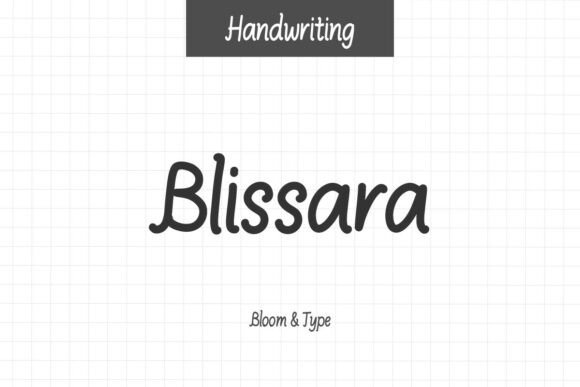
Introducing Blissara Font: The Epitome of Modern Simplicity and Human Touch
In the realm of typography, fonts play a pivotal role in conveying messages, evoking emotions, and creating lasting impressions. Among the myriad of fonts available, Blissara stands out as a beacon of elegance and approachability. This gentle handwritten font seamlessly blends modern simplicity with a natural, human touch, making it an ideal choice for designers seeking to inspire, comfort, or connect with their audience on a personal level.
The Essence of Blissara: A Harmony of Modernity and Humanity
Blissara is not just a font; it’s an experience. Each character is meticulously crafted to flow smoothly, exuding a sense of calmness, warmth, and positivity. This fluidity in design ensures that any text set in Blissara is not only aesthetically pleasing but also conveys a feeling of serenity and approachability. Whether it’s for quotes, branding, lifestyle content, packaging, or invitations, Blissara brings a unique blend of modern simplicity and personal charm that is hard to replicate.
The Design Philosophy Behind Blissara
The design of Blissara is rooted in a deep understanding of human psychology and the power of typography. The rounded forms of its characters contribute to its exceptionally high readability, making it easy for readers to engage with the content. At the same time, Blissara retains a personal, handwritten charm that sets it apart from more conventional fonts. This balance between readability and personality makes Blissara an excellent choice for a wide range of design projects.
Applications of Blissara: Where Versatility Meets Elegance
One of the key strengths of Blissara is its versatility. Its unique blend of modern simplicity and human touch makes it suitable for various applications, including:
- Quotes: Blissara brings a touch of elegance and sincerity to quotes, making them perfect for sharing on social media, printing on posters, or incorporating into blog posts.
- Branding: For brands looking to convey a sense of approachability, warmth, and positivity, Blissara is an excellent choice. It can be used in logos, marketing materials, and website typography to create a cohesive and inviting brand image.
- Lifestyle Content: Whether it’s for blog posts, magazine articles, or social media updates, Blissara adds a personal touch to lifestyle content, making it more engaging and relatable to readers.
- Packaging: Blissara’s readability and charm make it suitable for product packaging, where it can help brands stand out on store shelves and communicate their message effectively.
- Invitations: For event invitations, Blissara offers a way to express sincerity and warmth, setting the tone for a memorable experience.
The Technical Advantages of Blissara
Besides its aesthetic qualities, Blissara also boasts technical advantages that make it a practical choice for designers:
- Readability: The consistent rhythm and rounded forms of Blissara ensure that it remains highly readable, even at smaller sizes.
- Flexibility: Blissara can be used across various platforms and devices, from print materials to digital screens, without losing its charm or legibility.
How to Use Blissara Effectively in Your Designs
To truly leverage the potential of Blissara, consider the following tips:
- Pair it with Complementary Fonts: While Blissara is versatile on its own, it can also be paired with other fonts to create contrast and hierarchy in your designs.
- Adjust Line Spacing: To enhance readability, especially in longer texts, adjust the line spacing to create a comfortable rhythm.
- Play with Colors: Blissara’s charm can be further emphasized by choosing colors that complement its warm and inviting feel.
Blissara font represents a significant advancement in typography, offering a unique blend of modern simplicity and human touch. Its design philosophy, versatility, and technical advantages make it an invaluable tool for designers aiming to create impactful, comforting, and inspiring content. Whether you’re working on branding, lifestyle content, packaging, or invitations, Blissara provides a way to connect with your audience on a deeper level, conveying sincerity and approachability with every word.
Embracing the Future of Typography with Blissara
As we move forward in the ever-evolving world of design, fonts like Blissara remind us of the power of typography to evoke emotions, convey messages, and create connections. By embracing fonts that blend modernity with humanity, designers can create works that are not only visually stunning but also emotionally resonant. Blissara is more than just a font; it’s a bridge between the digital and the personal, a tool that can help designers create a more compassionate, understanding, and connected world, one letter at a time.